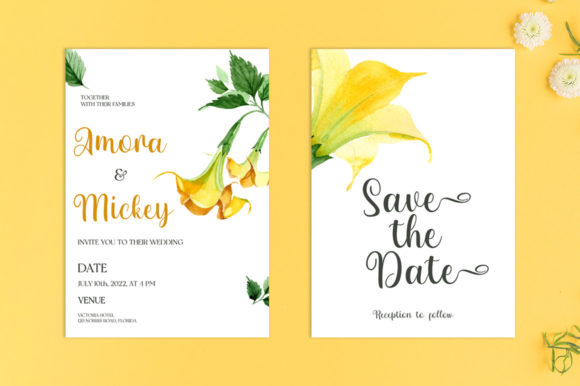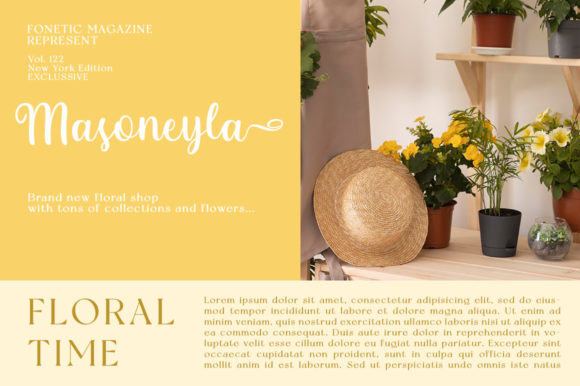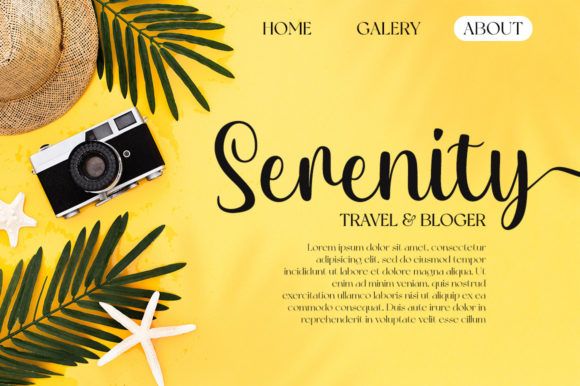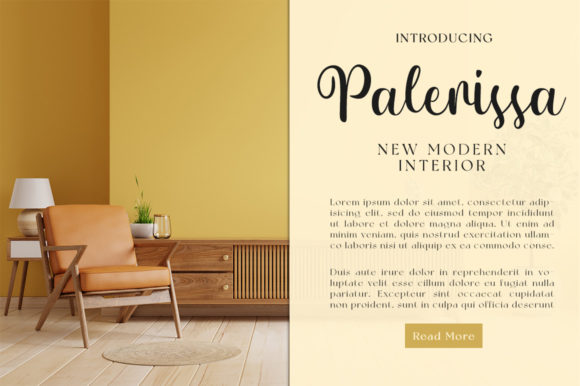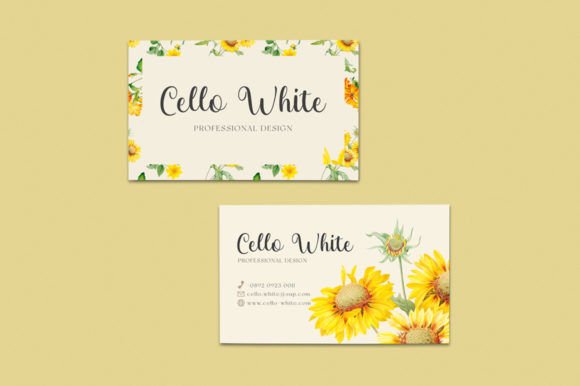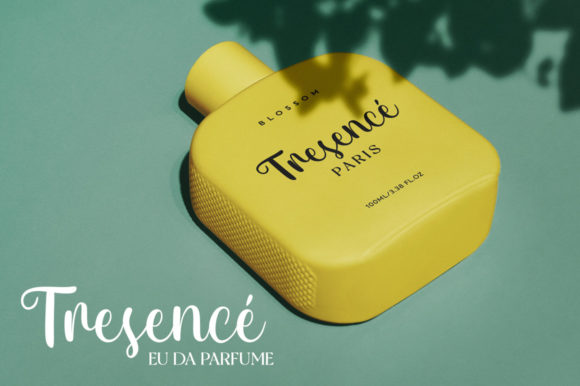
Introduction to Palerissa Font
Palerissa is a sweet and delicate handwritten font.
This font is PUA encoded which means you can access all of the glyphs and swashes with ease .
Key Features of Palerissa Font